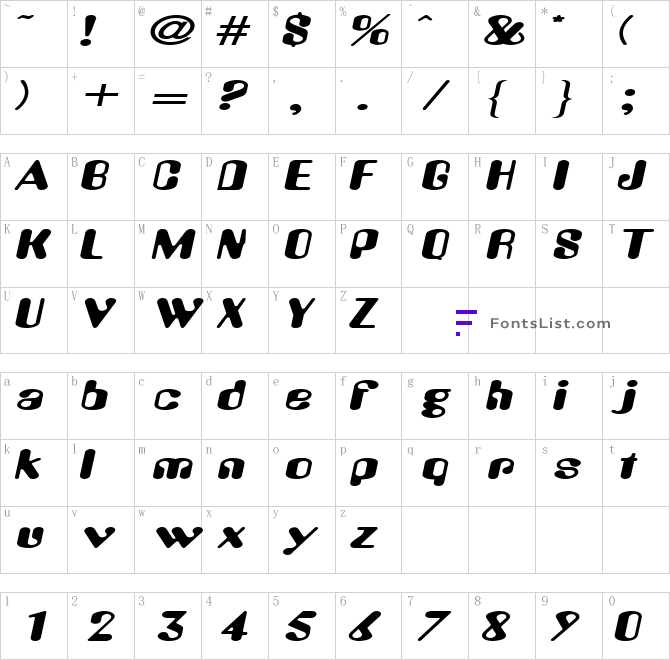
- Font Name:Amos Extended
Amos-Extended-BoldItalic.ttf is a very beautiful artistic font, Amos-Extended-BoldItalic.ttf is widely used in the design and printing of various books and pictures,Amos-Extended-BoldItalic.ttf has a strong visual impact,Amos-Extended-BoldItalic.ttf is a commonly used font in newspapers, magazines and books, and is used in posters, e-commerce Poster design, store design, logo design, font design and other fields.Amos-Extended-BoldItalic.